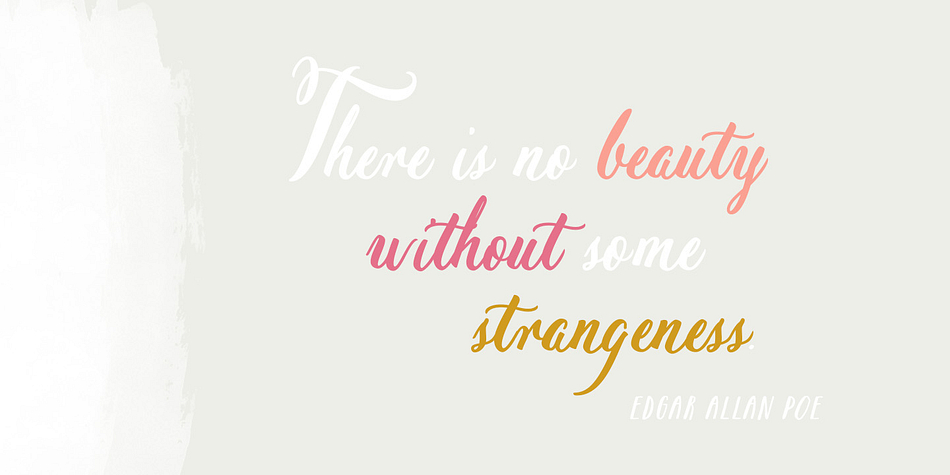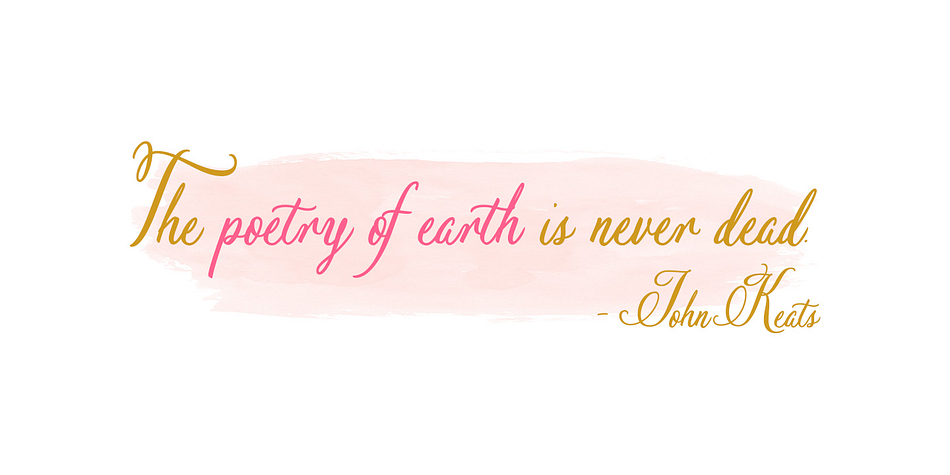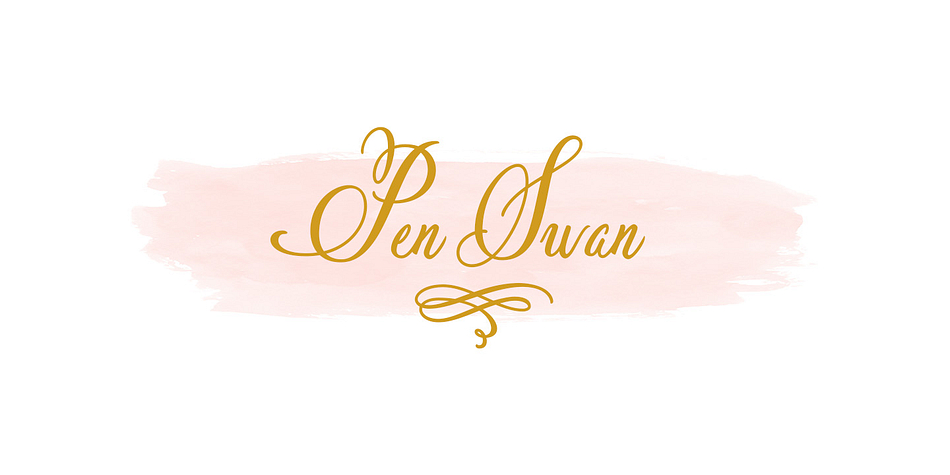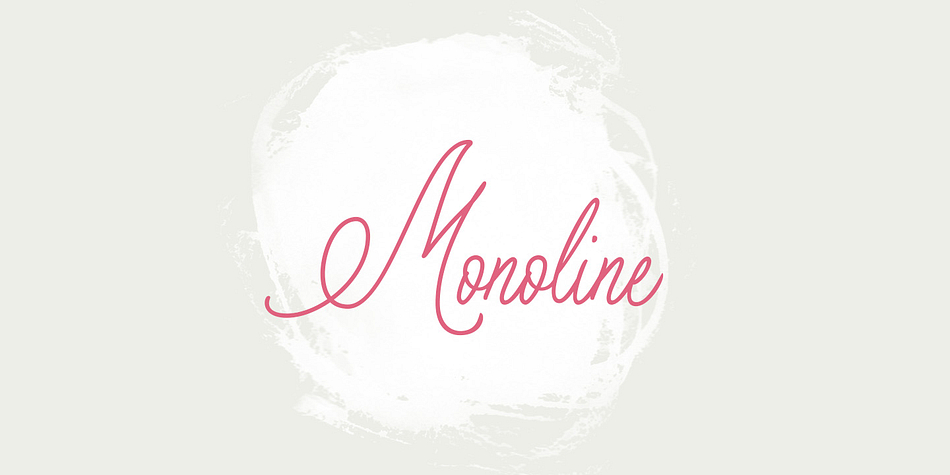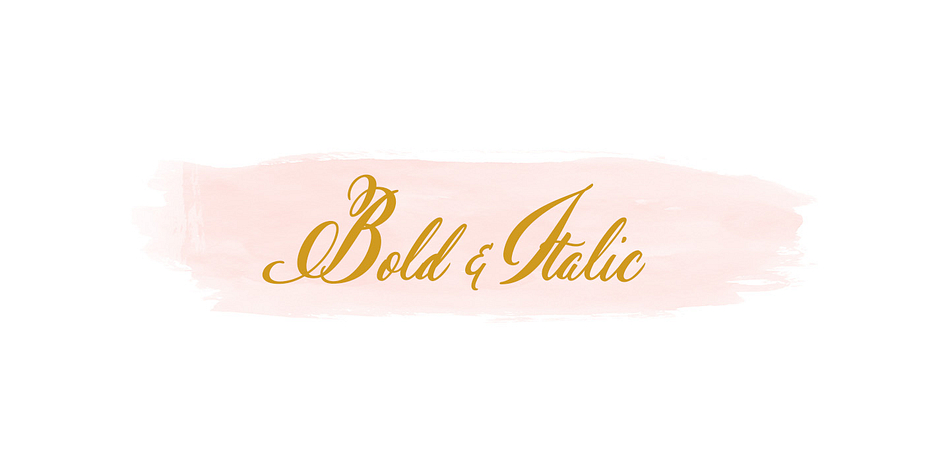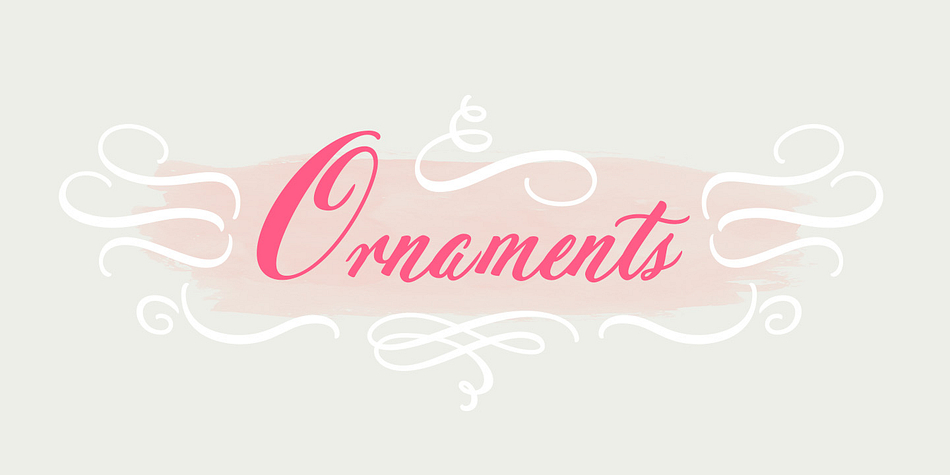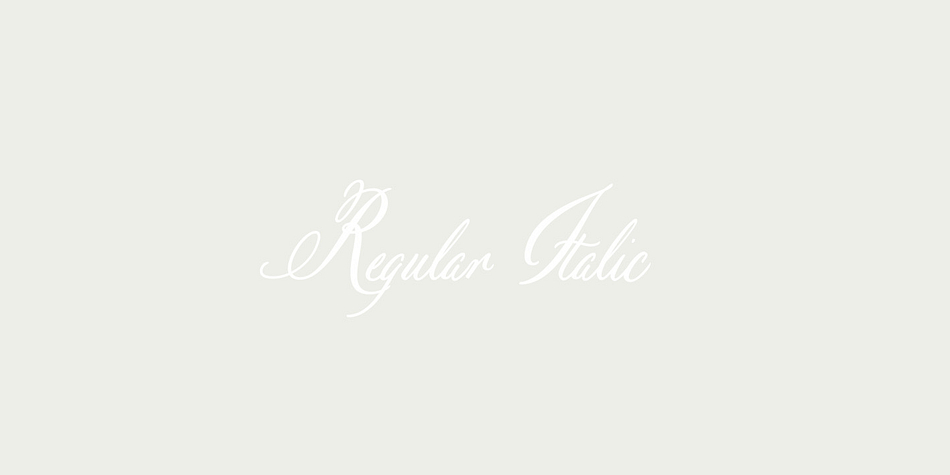
Designed by Jen Maton, Pen Swan is a dingbat and script font family. This typeface has seven styles and was published by Great Lakes Lettering.
Pen Swan is the latest offering from Jen Maton & Great Lakes Lettering. A Pen Swan is the species of an adult female swan. It is a fitting name as it contains ‘pen’ in the name which is the tool used to draw the letters. Pen swan demonstrates the same grace as the most elegant type of bird in the animal kingdom. It has a rolling gliding quality, as if the letters are waves forming spontaneously from your computer screen.
Pen Swan is optimal for any project that needs an elegant touch. Great for Wedding Invites, Stationery, and Decorative prints.